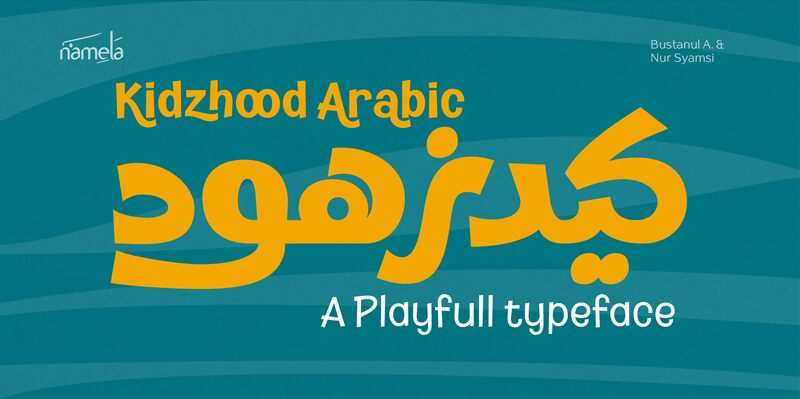
Kidzhood DEMO Black
Kidzhood Black font by Namela Type is an energetic, comic style display font filled with animated flair and youthful charm. Thick bold strokes are combined into uppercase glyphs reminiscent of handwriting seen in comics and animations. Curved strokes give it an exceptionally rounded and playful cartoon appearance that’s instantly noticeable even from a distance.
This free bold font captures the best elements from both world, qualities that makes it excellent for applications that include children books, posters, book covers, greeting cards, banners, and educational programs (web or print).